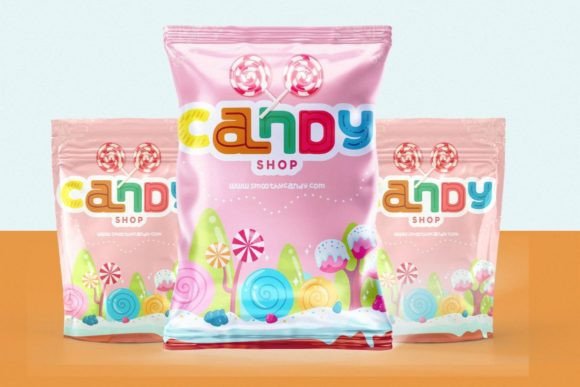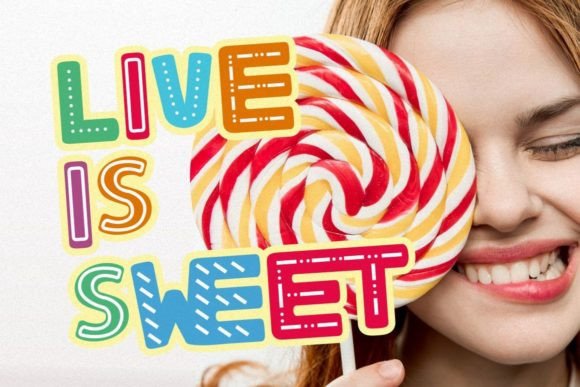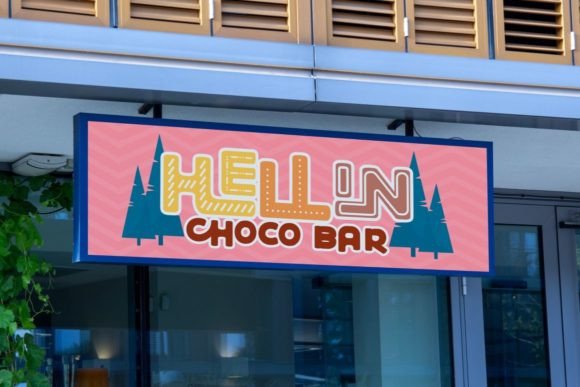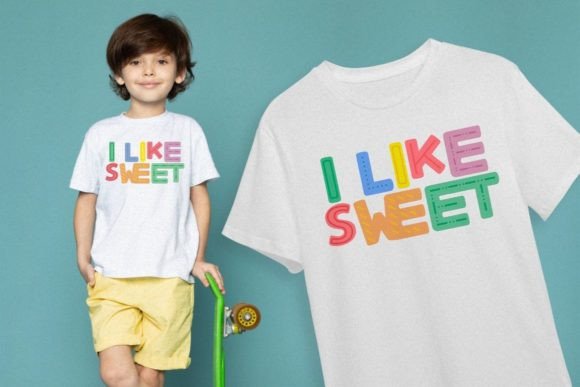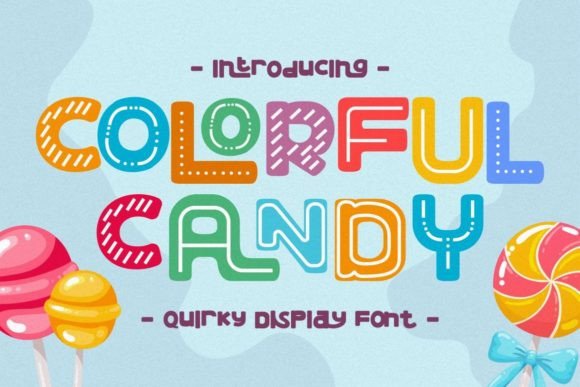
Introducing Colorful Candy Font: The Sweetest Addition to Your Design Collection
Are you tired of using the same old fonts in your designs? Do you want to add a touch of fun and playfulness to your creative projects? Look no further than the Colorful Candy Font! This delightful display font is sure to bring a smile to your face and make your designs stand out from the crowd.
The Perfect Blend of Friendliness and Fun
Colorful Candy Font is a fun and playful display font that conveys impeccable friendliness. Its unique and colorful design makes it perfect for a wide range of creative projects, from sweet treats and desserts to kids’ parties and celebrations. With this font, you can add a dash of whimsy and personality to your designs, making them truly unforgettable.
What Makes Colorful Candy Font So Special?
So, what sets Colorful Candy Font apart from other fonts out there? For starters, it’s a beautifully designed display font that’s sure to grab attention. Its colorful and playful design makes it perfect for headlines, titles, and other display text. Plus, it’s PUA encoded, which means you can access all of the amazing glyphs and ligatures with ease!
PUA Encoding: What Does it Mean?
For those who may not be familiar with PUA encoding, it’s a way of encoding fonts that allows for easy access to special characters, glyphs, and ligatures. With PUA encoding, you can unlock the full potential of the Colorful Candy Font and use it to create truly unique and eye-catching designs. No more tedious searching for special characters or complicated font editing – with PUA encoding, it’s all at your fingertips!
So, what can you create with the Colorful Candy Font? The possibilities are endless! Here are just a few ideas to get you started:
- Candy-themed party invitations and decorations
- Sweet treat packaging and labels
- Kids’ party decorations and activity sheets
- Blog headers and titles
- Branding and logo design
Why Designers and Crafters Love Colorful Candy Font
Designers and crafters alike are raving about the Colorful Candy Font, and it’s easy to see why. Here are just a few reasons why this font has become a favorite:
- It’s fun and playful, adding a touch of personality to any design
- It’s easy to use, with PUA encoding for simple access to special characters
- It’s versatile, suitable for a wide range of creative projects
- It’s high-quality, with crisp and clear lines that look great at any size
Get Ready to Make Your Designs Pop!
In conclusion, the Colorful Candy Font is a fun and playful display font that’s perfect for designers and crafters looking to add a touch of friendliness and whimsy to their creative projects. With its PUA encoding, colorful design, and endless possibilities for use, this font is sure to become a staple in your design collection. So go ahead, get creative, and make your designs stand out with the Colorful Candy Font!